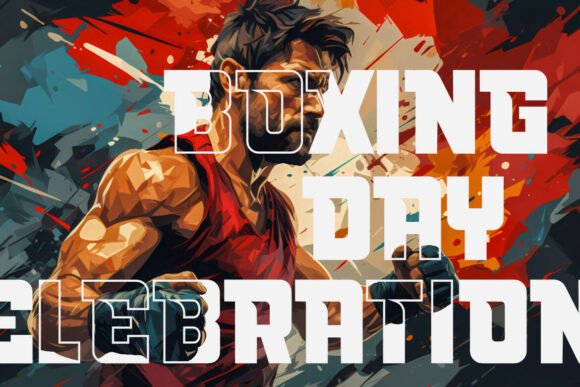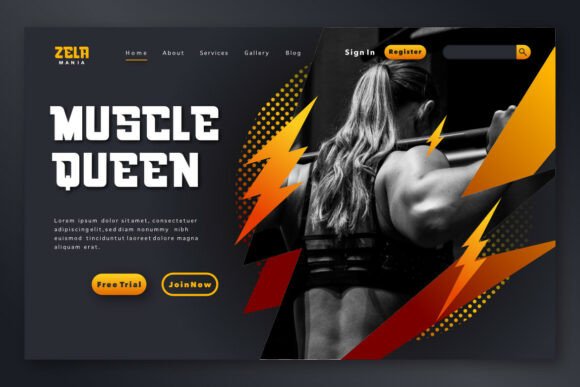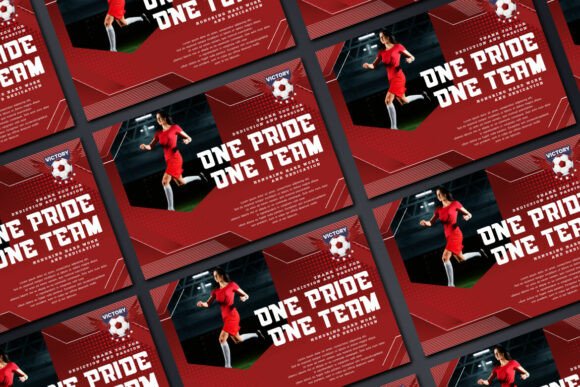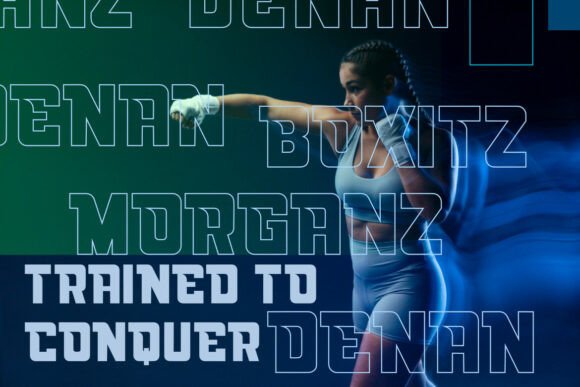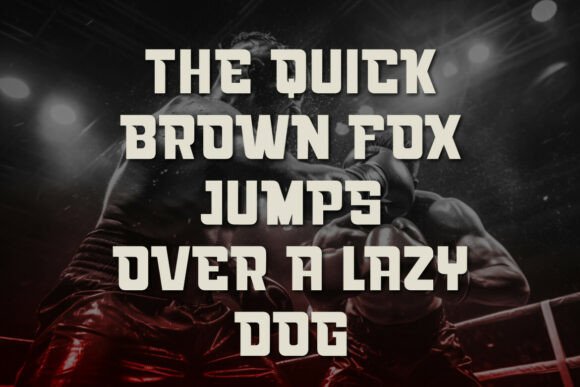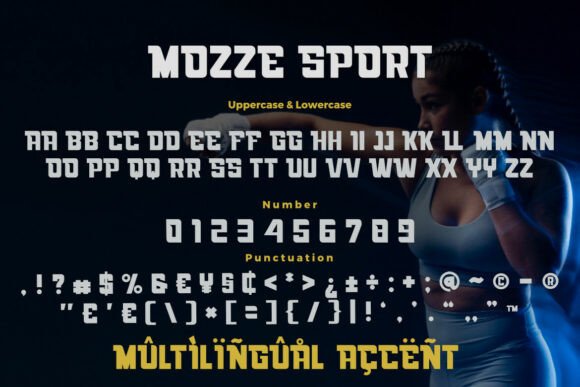
Introduction to Mozze Sport Font
Mozze Sport Font embodies raw energy, precision, and competitive motion.
Designed with a bold geometric structure and modern athletic style, it delivers power in every letter — perfect for visuals that demand strength, speed, and dominance Every curve and cut reflects determination and discipline, bringing a sense of victory to your design.